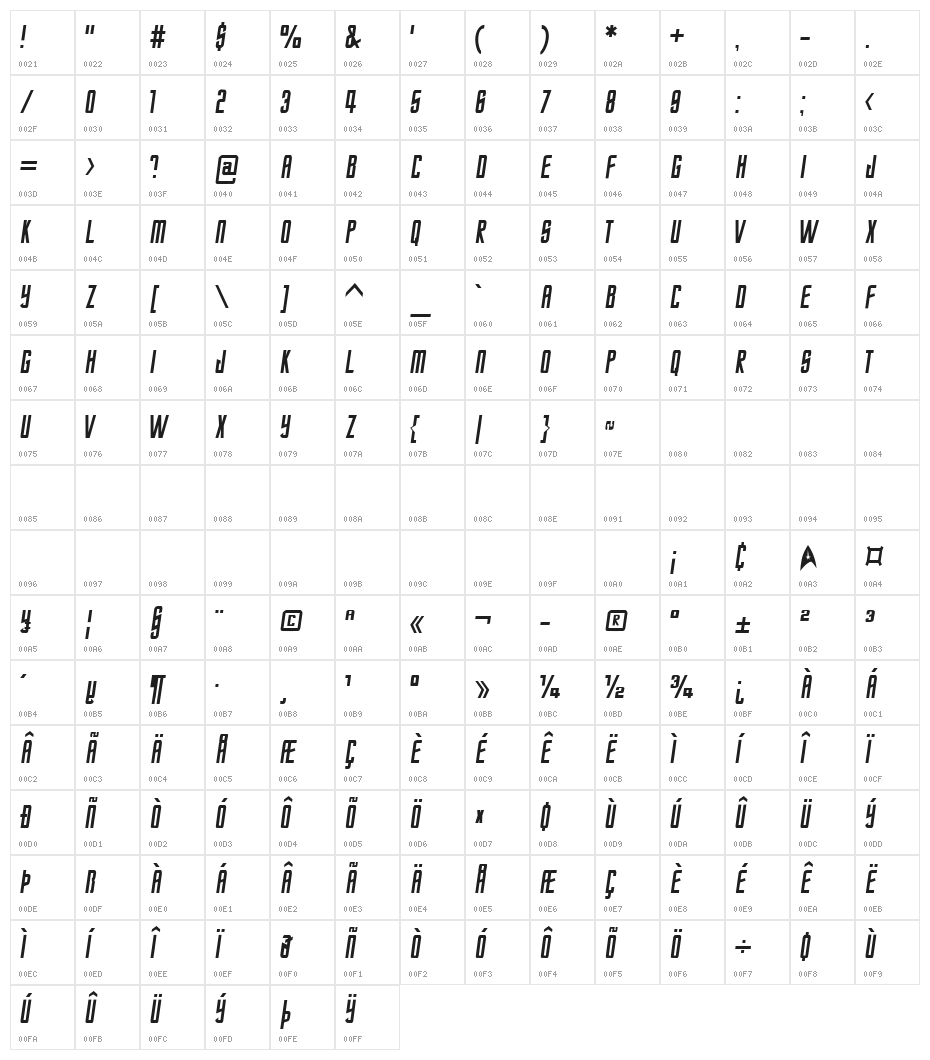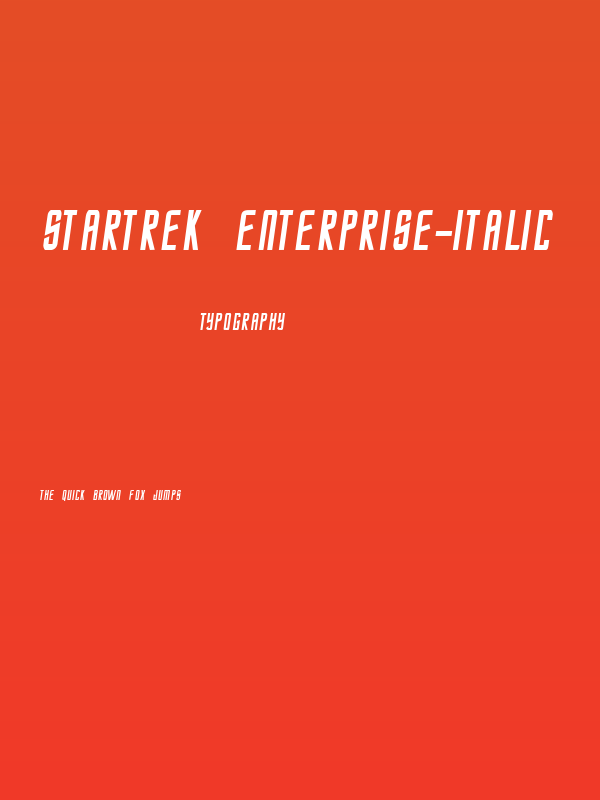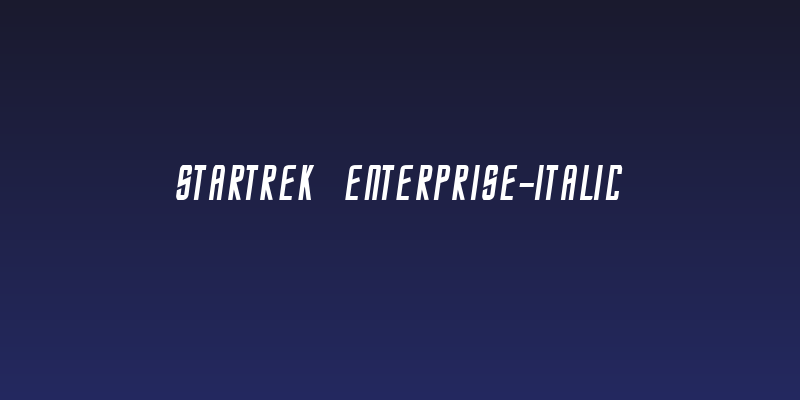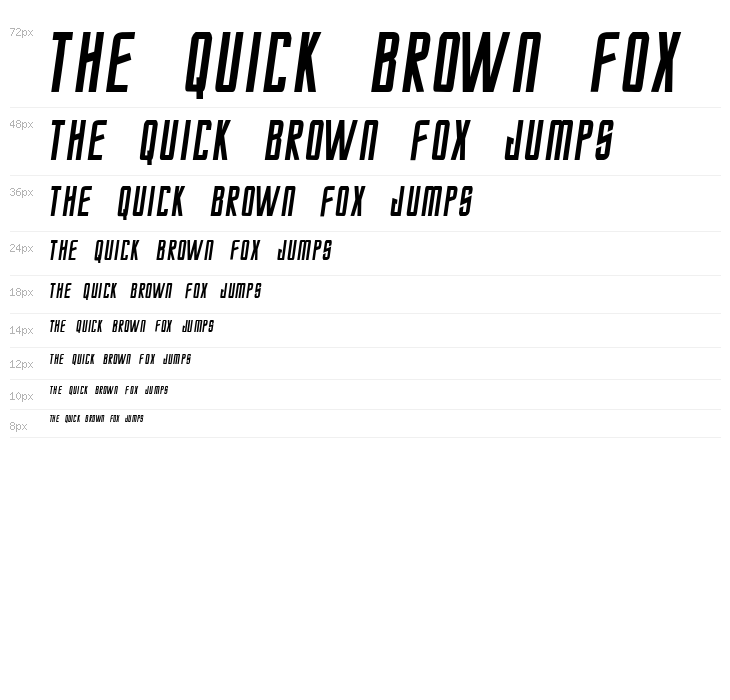
StarTrek Enterprise-Italic Font
StarTrek Enterprise-Italic Description
This font features a futuristic and dynamic design, characterized by its italicized and angular letterforms. The sharp edges and slanted orientation give it a sense of motion and modernity, reminiscent of science fiction aesthetics. The uppercase and lowercase letters maintain a consistent style, with a slightly condensed appearance that enhances its sleek look. The numerals and special characters are designed to match the overall theme, making it suitable for projects that require a bold and innovative visual impact.
Proposed ProjectsIdeal for sci-fi themed projects, technology branding, movie posters, and video game titles.